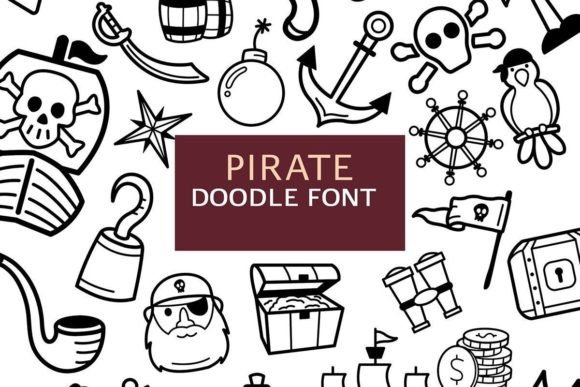
Journey into the world of Pirate Doodle Font, a captivating collection of dingbat symbols that will set your digital designs ablaze with a touch of whimsy and adventure. Dive into a treasure cove of creative possibilities, where imagination knows no bounds.
With Pirate Doodle Font, your digital creations will embark on a swashbuckling voyage, captivating your audience with its charming and playful spirit. It's the perfect font for those seeking a unique and expressive voice in their designs, branding, and marketing materials.
Unleash your inner pirate and let your creativity run wild as you explore the boundless possibilities of Pirate Doodle Font. Its versatility extends far beyond the realm of digital design, making it a treasure for crafters, planners, and artists alike.
Picture this: a whimsical planner adorned with Pirate Doodle Font, where each day is an adventure waiting to be discovered. Or, envision a captivating social media post that leaps off the screen with Pirate Doodle's playful charm. The possibilities are endless, limited only by the depths of your imagination.
Pirate Doodle Font isn't just a collection of symbols; it's a gateway to a world of creativity and self-expression. It's an invitation to embark on a journey where your designs become masterpieces and your brand shines brighter than a golden doubloon.
So hoist the sails of your imagination and set course for adventure with Pirate Doodle Font. Let its playful spirit ignite your creativity and guide you towards horizons of boundless expression.